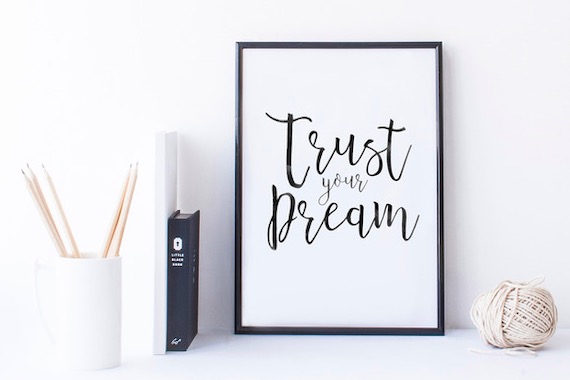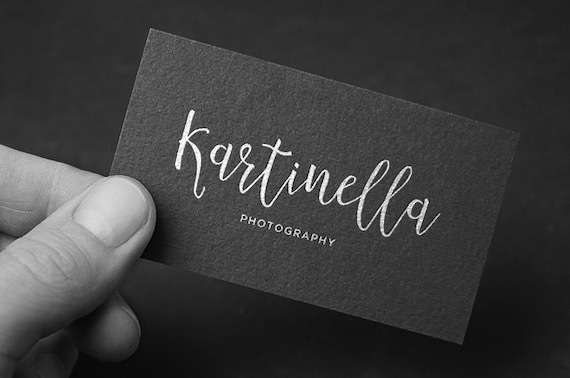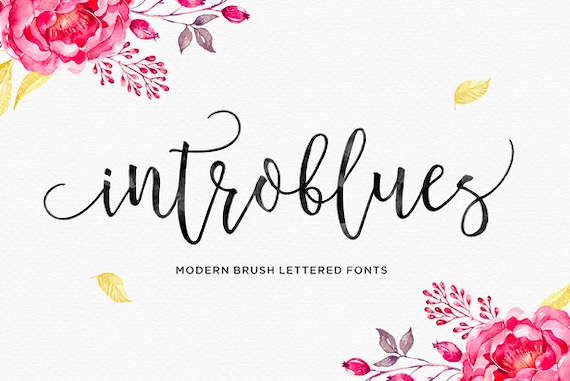
Introblues Script Font is a modern brush calligraphy typeface that was created and shared by Dhan Studio. This script font has an organic, dynamic, and energetic style. And it can be used for various design purposes such as brochures, labels, greeting cards, invitations, logos, headings, t-shirt designs, posters, book covers, and more.
Introblues Calligraphy Font